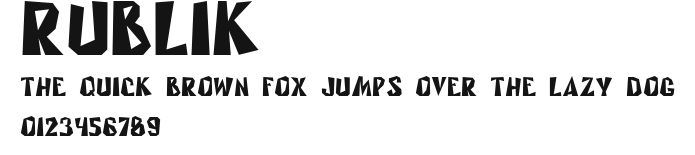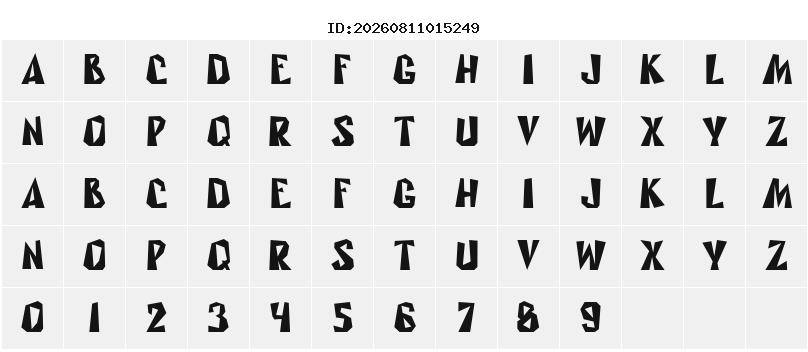
• Font Name: Rublik
• Full Font Name: Rublik
• Designer: Alex Grigoriev
About Rublik.ttf
Rublik.ttf is a modern, elegant sans-serif font designed for ultimate readability and visual harmony. Perfect for branding, headlines, web design, and print materials.